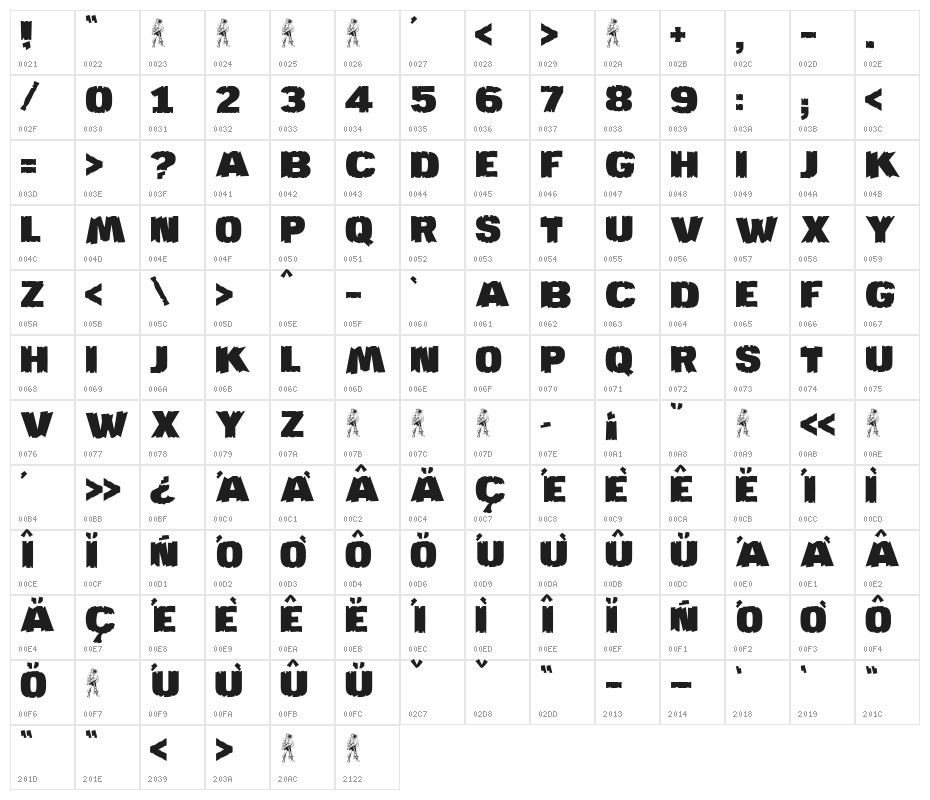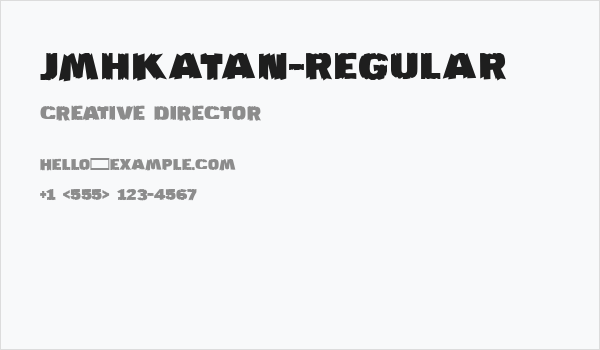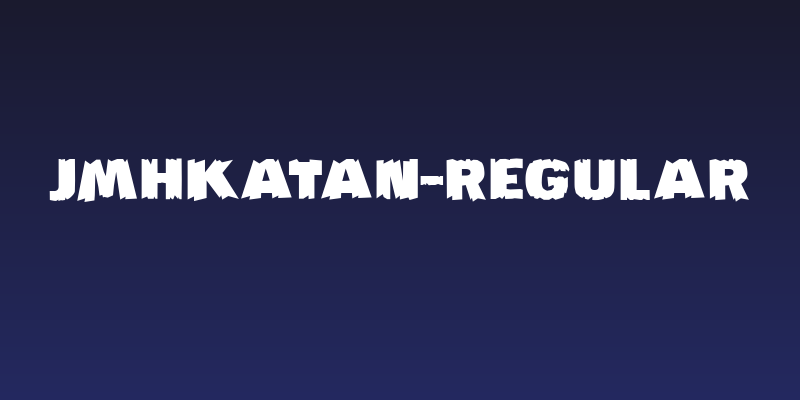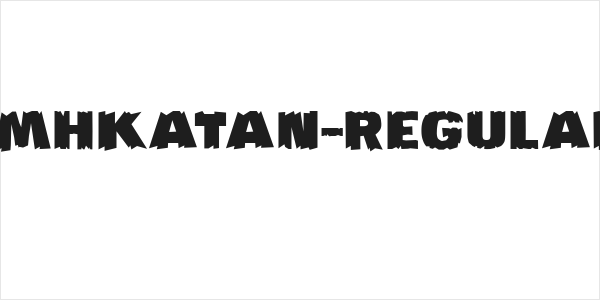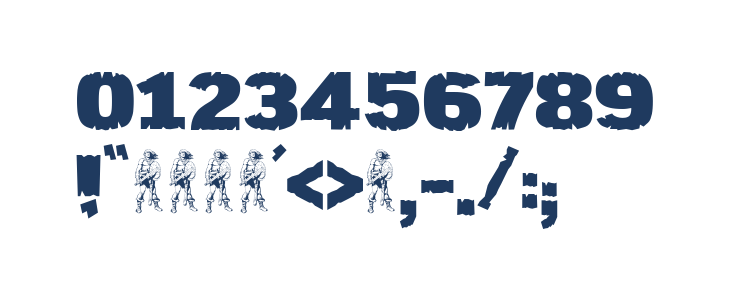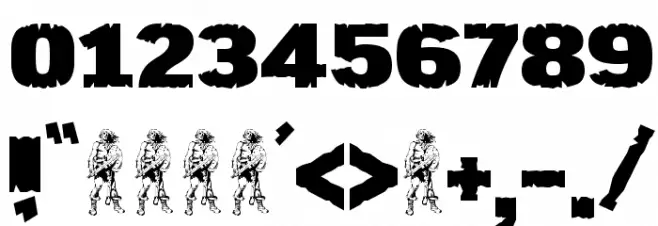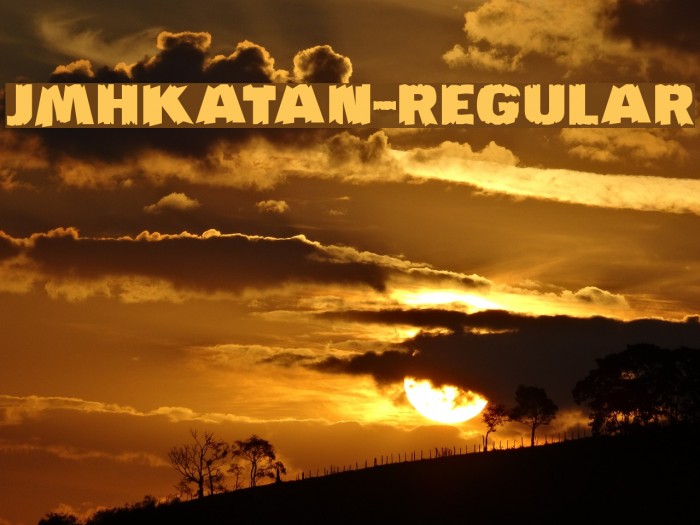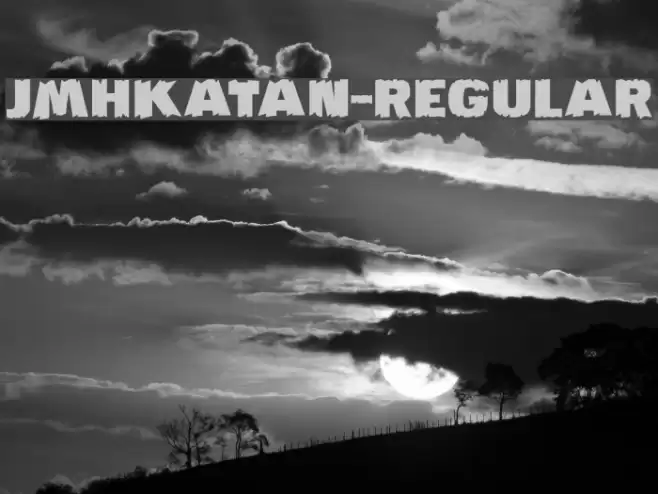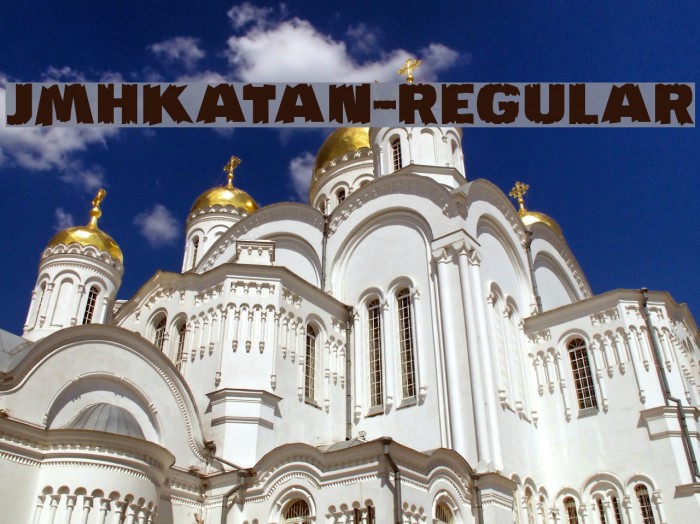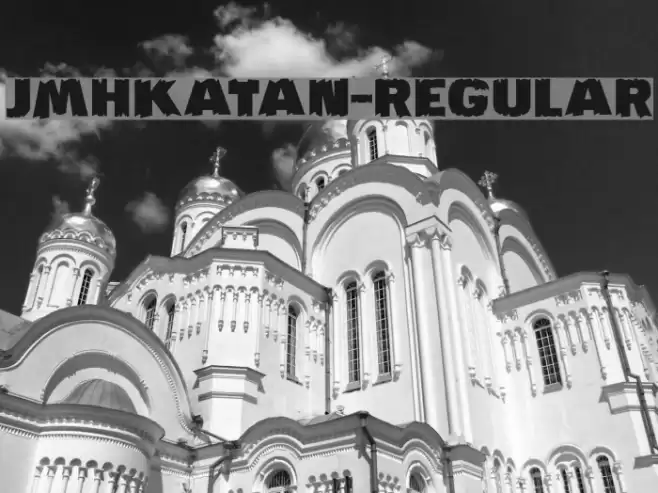
JMHKATAN-Regular Font
JMHKATAN-Regular Description
This font exhibits a bold and rugged style, characterized by its distressed and textured appearance. The letters are thick and blocky, with irregular edges that give a sense of roughness and dynamism. The uppercase and lowercase letters maintain a consistent weight, enhancing the boldness of the font. Numbers and special characters follow the same design, ensuring uniformity across all glyphs. This font's unique style makes it stand out, offering a visually striking option for various design projects.
| Proposed Projects | Ideal for posters, album covers, video game graphics, and branding that requires a bold, edgy look. |